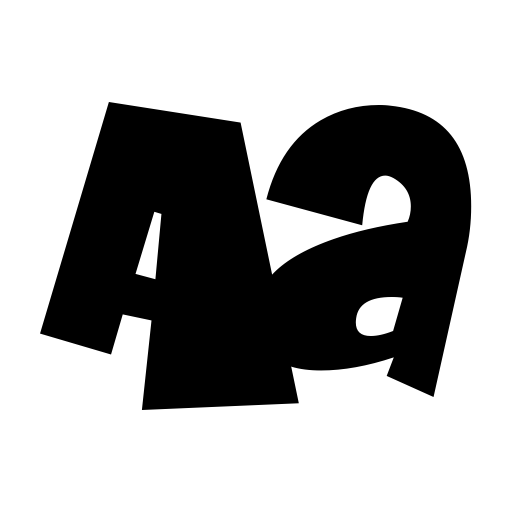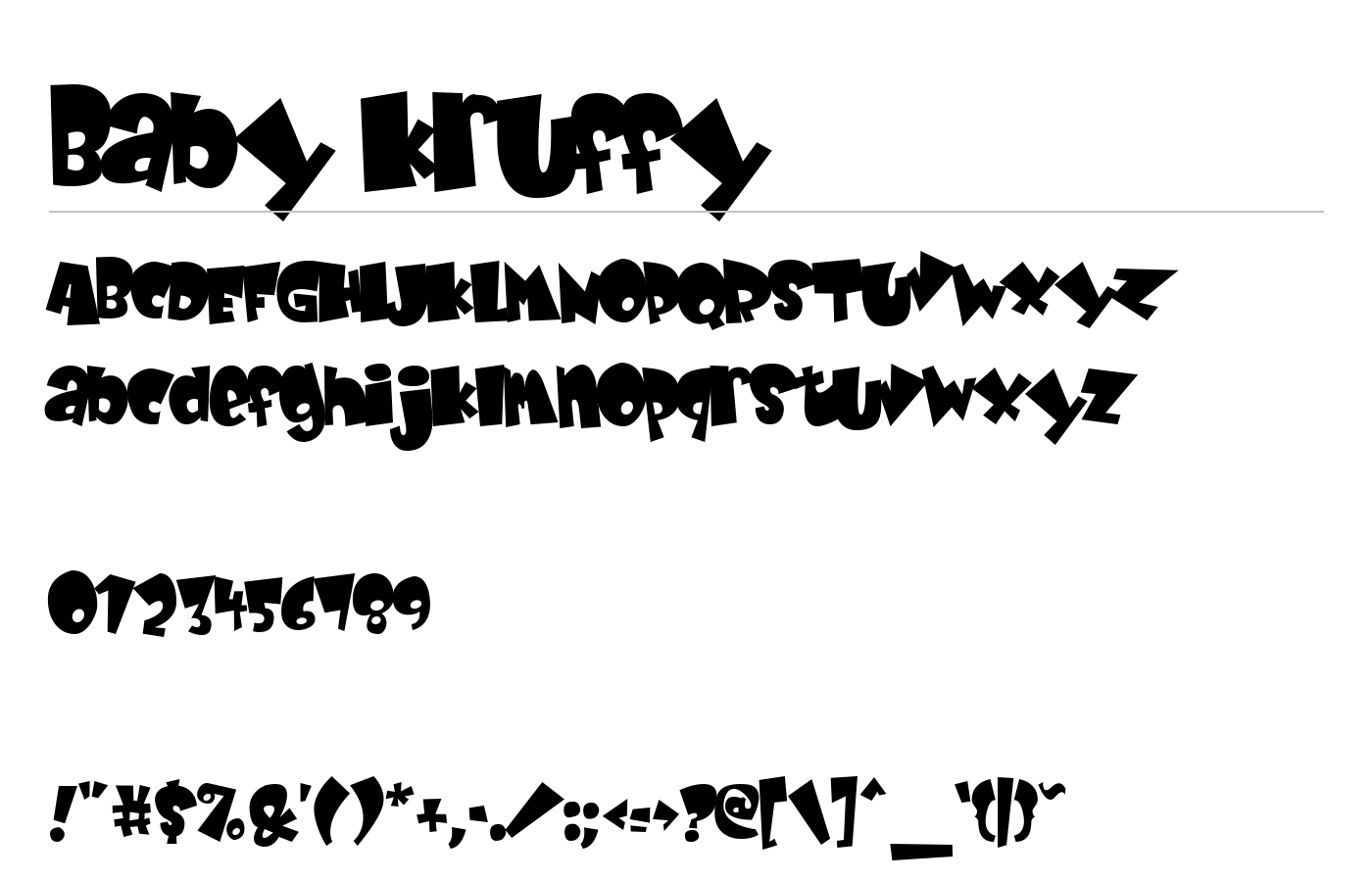
Baby Kruffy is a bold, playful display font with a chunky, irregular style that gives it a quirky, hand-cut paper look. Its uneven letter shapes and dynamic angles make it perfect for fun, informal designs like children’s books, party invitations, or creative posters. This font works best when you want to communicate a lively, energetic, and whimsical vibe.
Baby Kruffy Font
About Baby Kruffy Font